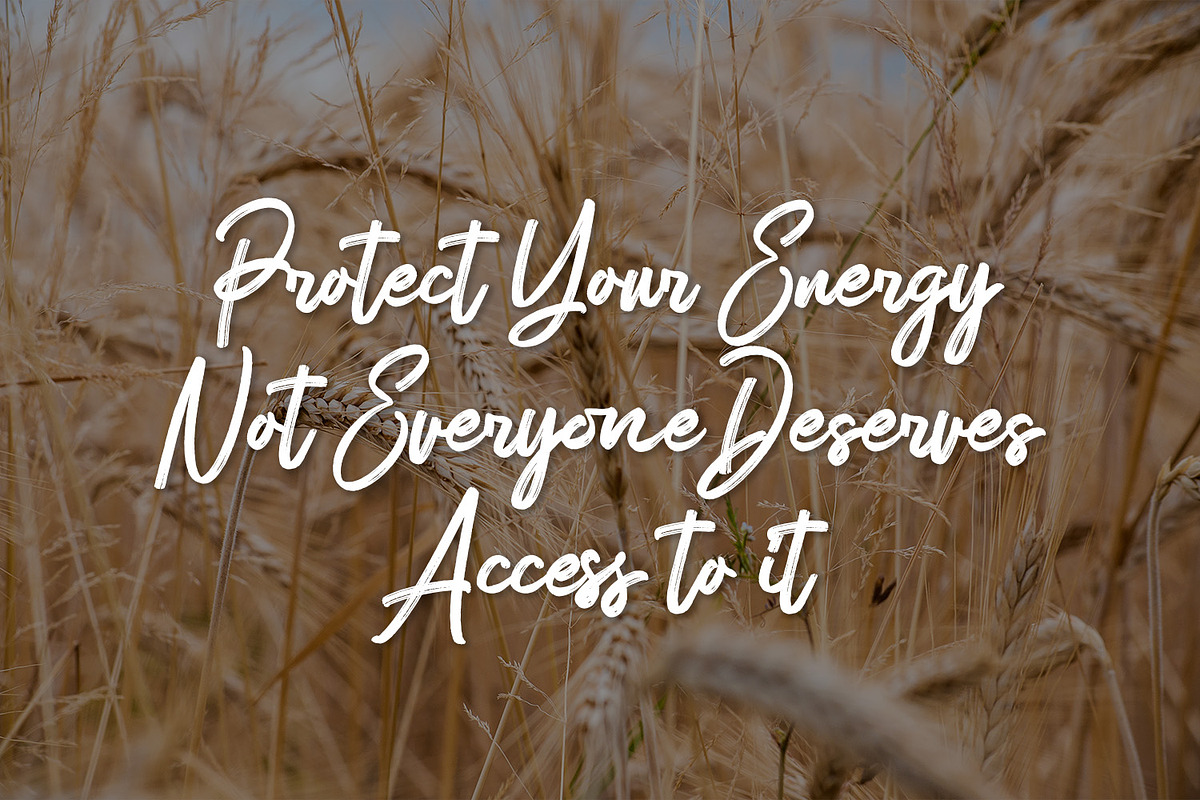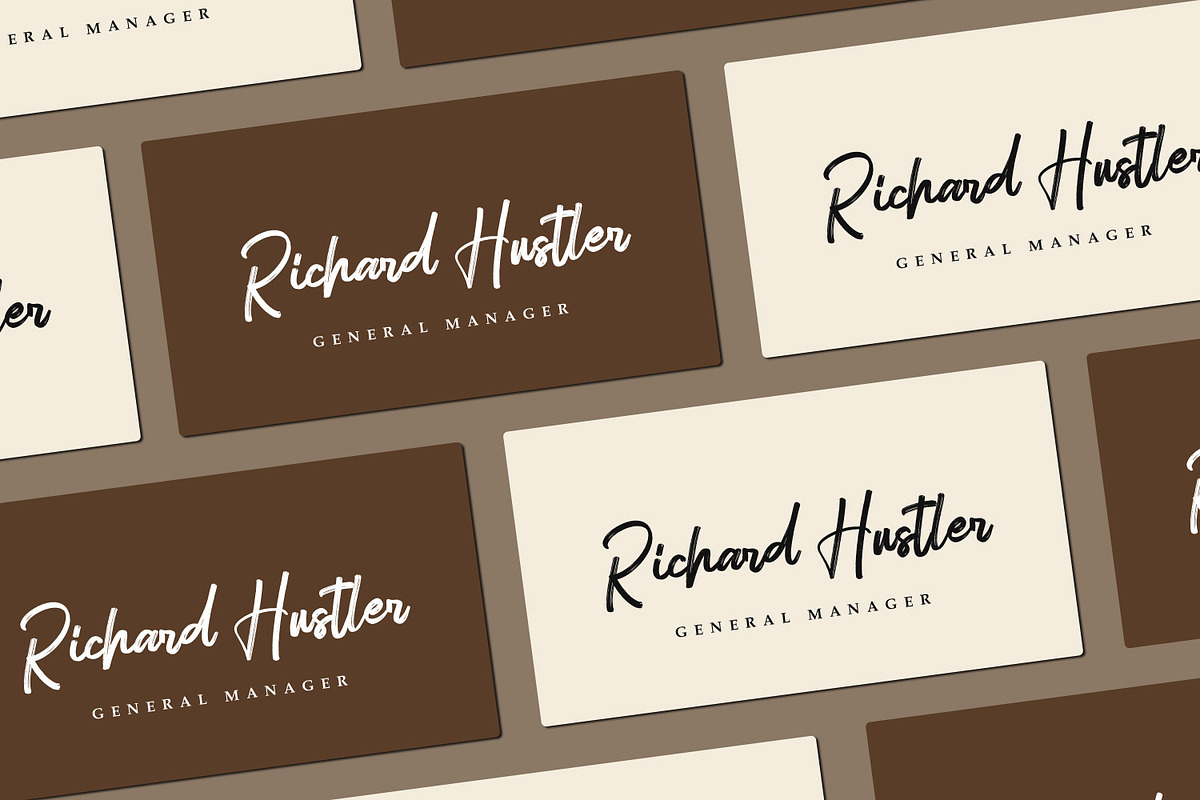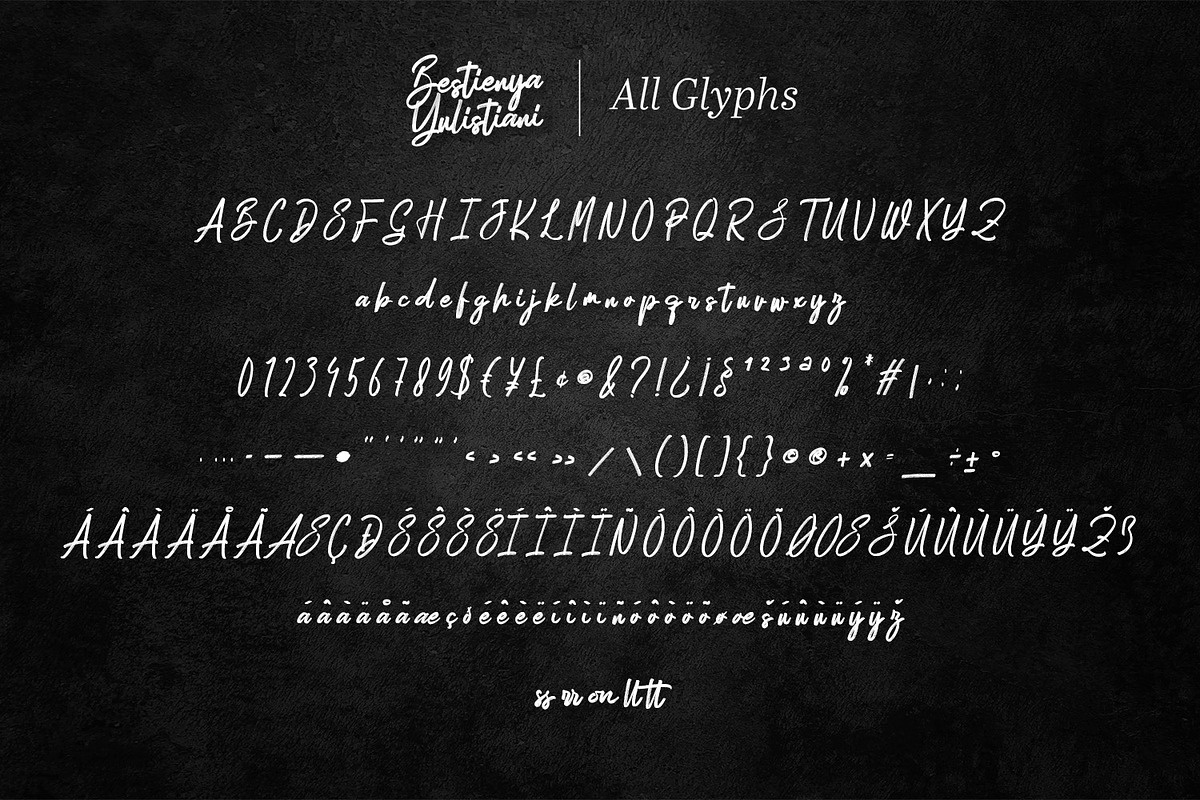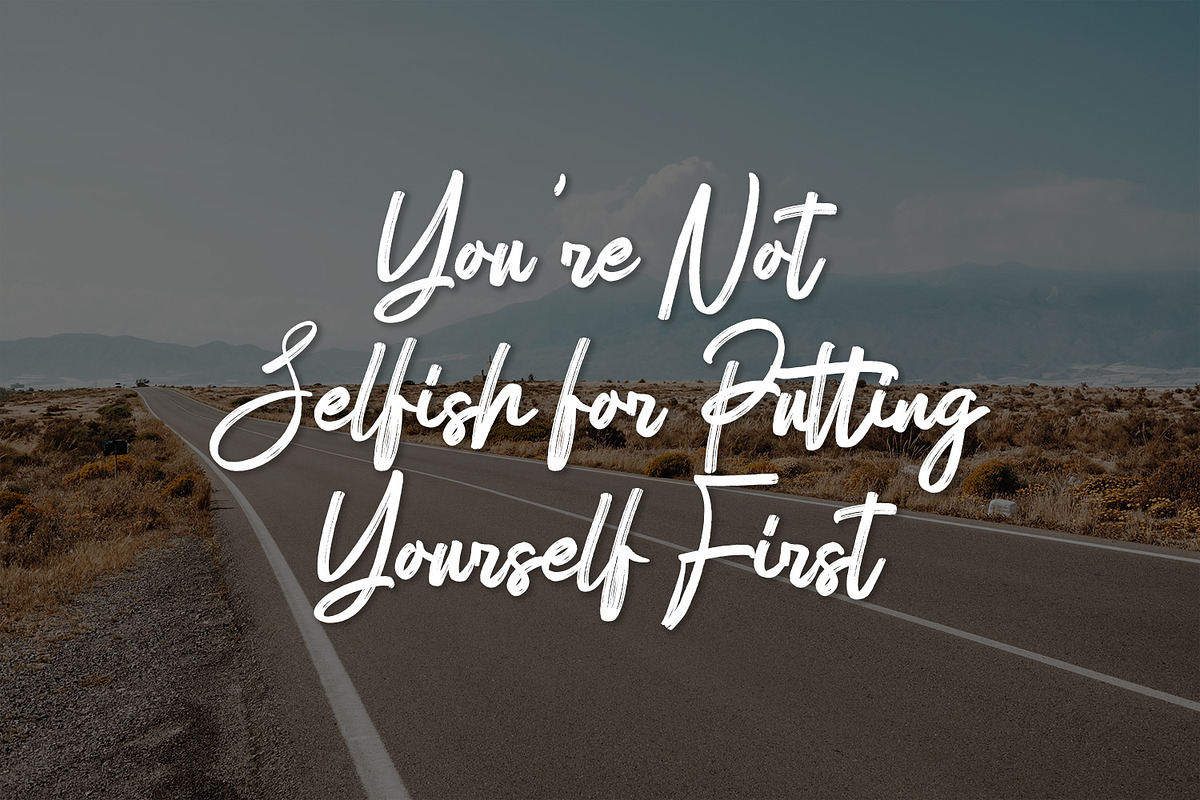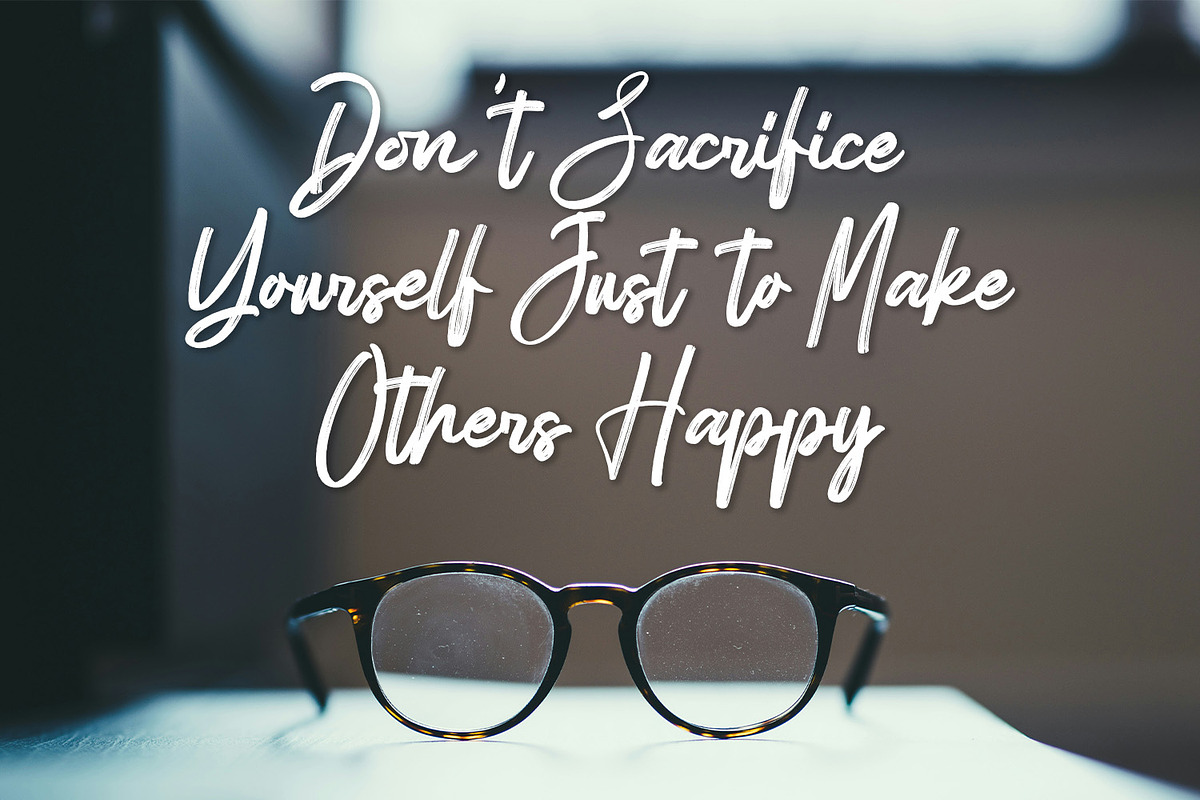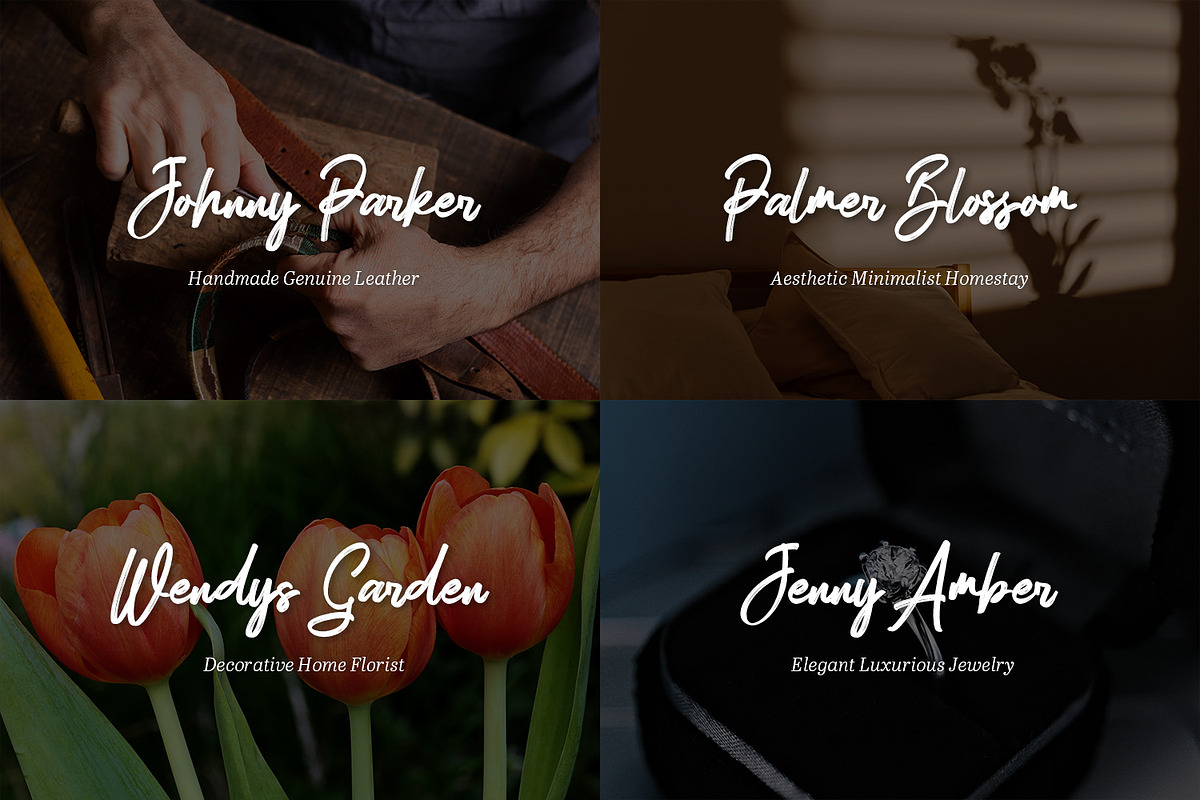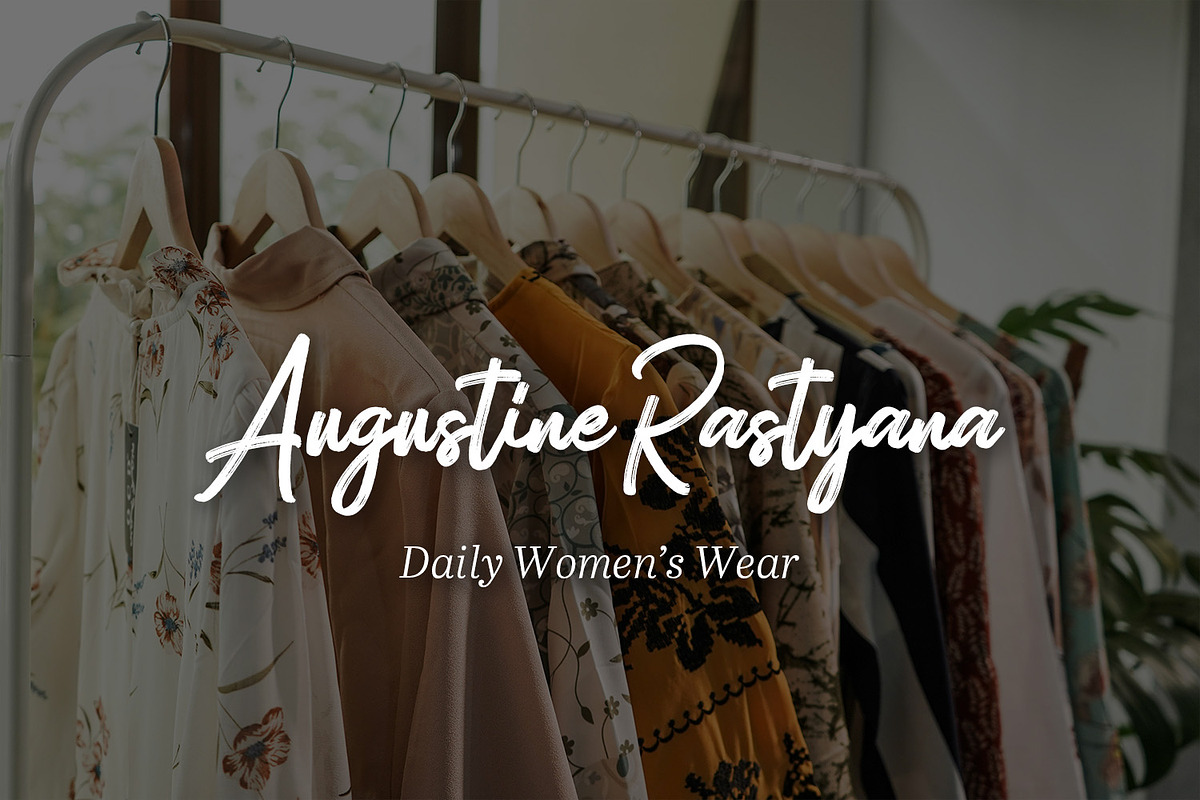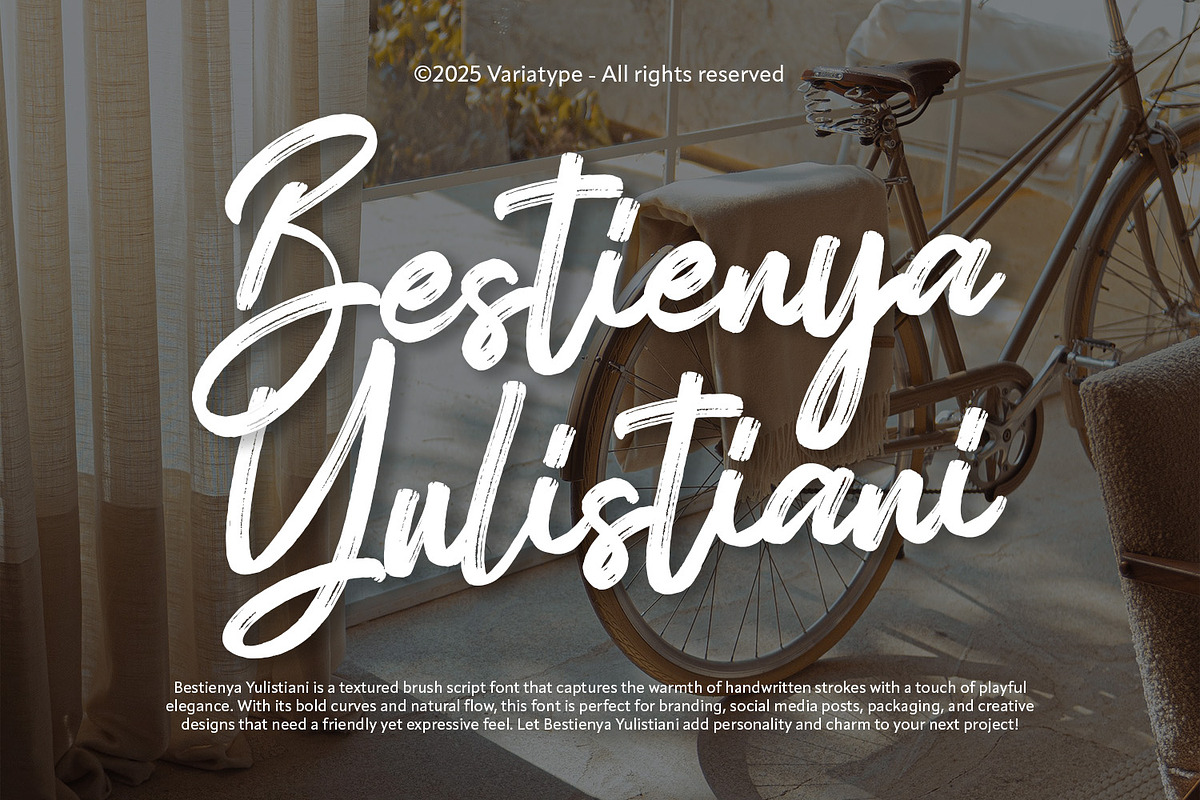
Bestienya Yulistiani - Brush Script
Bestienya Yulistiani is a textured brush script font that captures the warmth of handwritten strokes with a touch of playful elegance. With its bold curves and natural flow, this font is perfect for branding, social media posts, packaging, and creative designs that need a friendly yet expressive feel. Let Bestienya Yulistiani add personality and charm to your next project!
FONT FEATURES
Additional Accents
68 Languages